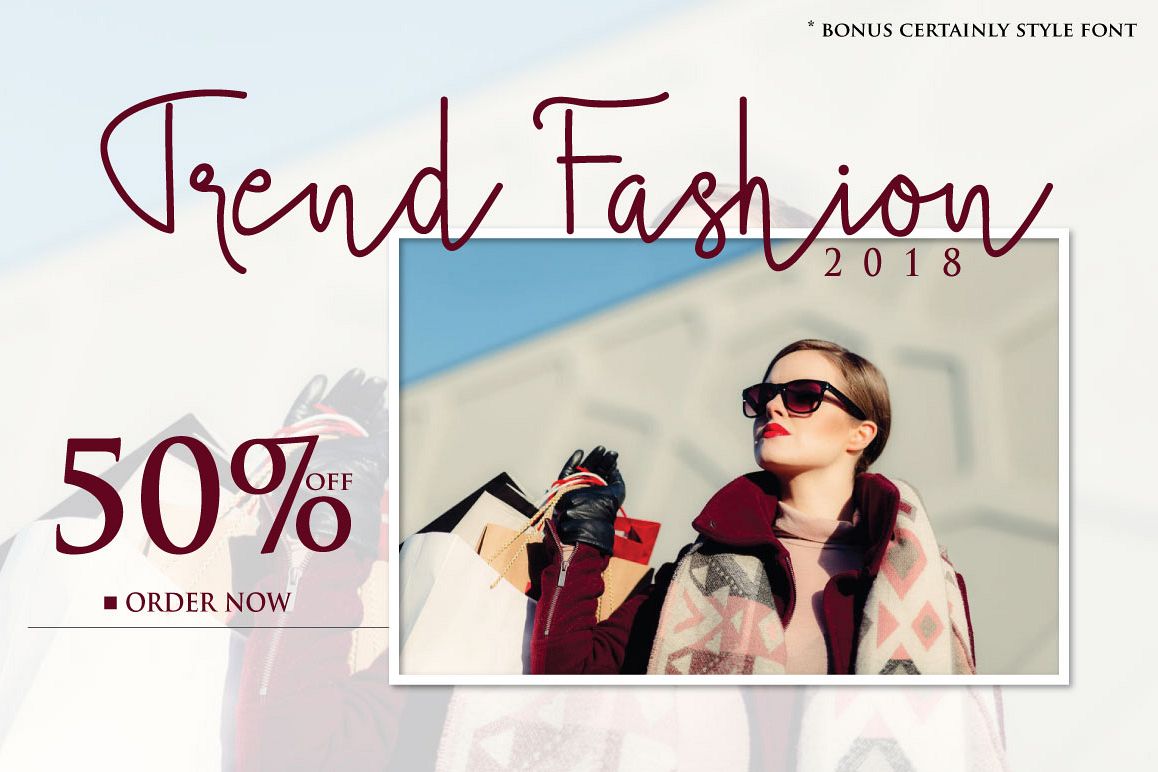
Brush Stroke Bonus Font
Brush Stroke is textured brush font, contemporary approach to design, handmade natural with an less regular baseline. Suitable for use in title design. Such as apparel, invitations, books tittle, stationery design, quotes, branding, logos, greeting card, t-shirt, packaging design, poster and more.Brush Stroke.
Mister Fast File Feature :
• Uppercase and Lowercase
• Uppercase and Lowercase Language
• Lowercase Alternate (ss01, ss02, ss03, ss04, ss05)
• Number and Punct
• Ligature (ff, ll,tt)
Bonus : Certainly Style